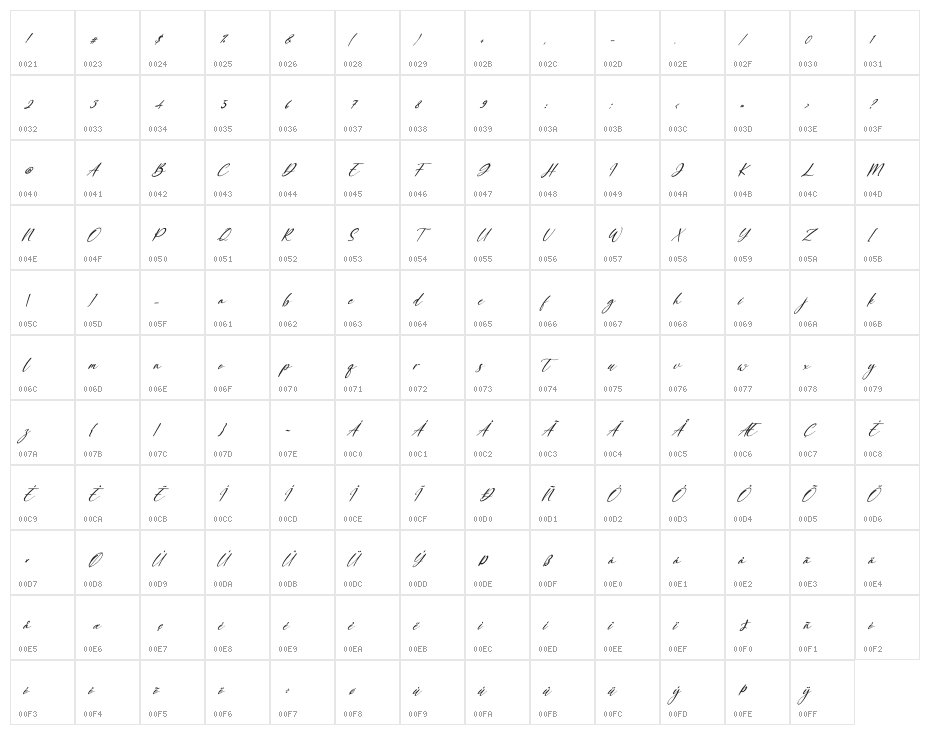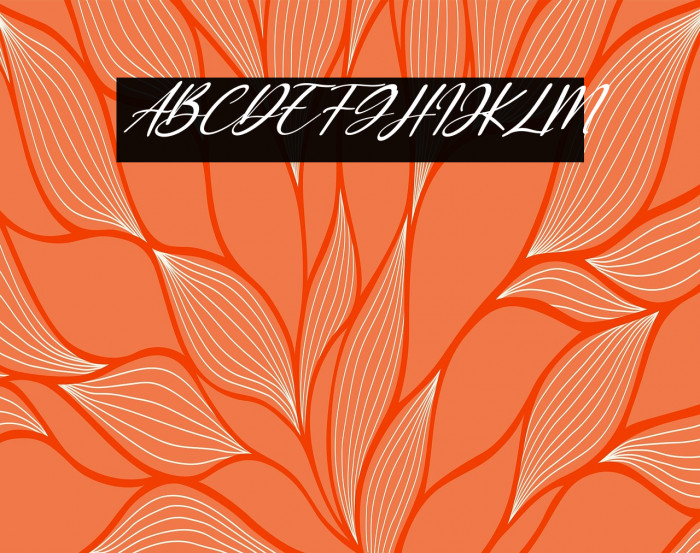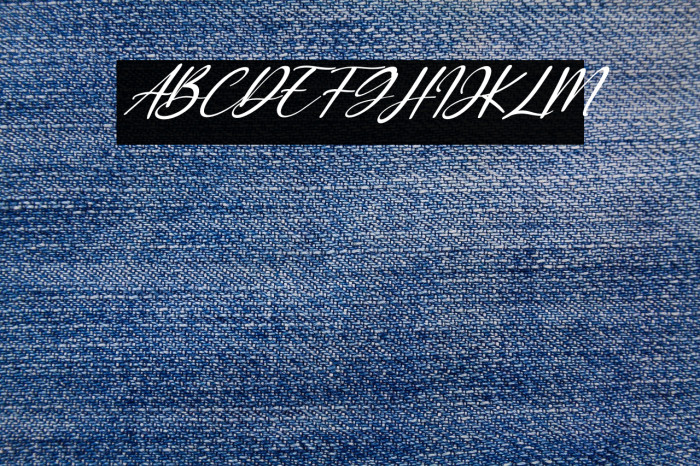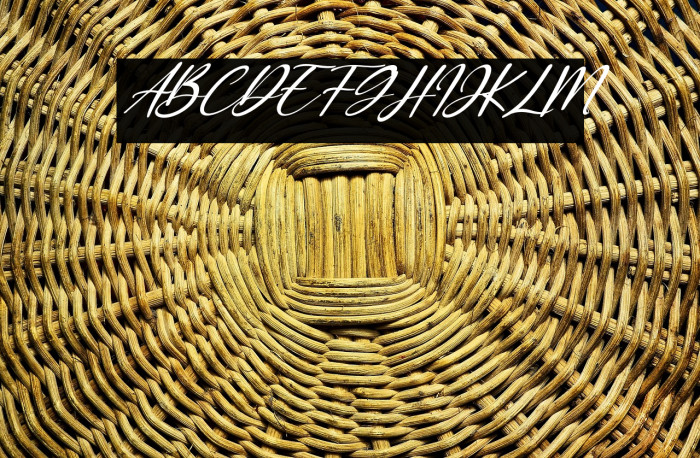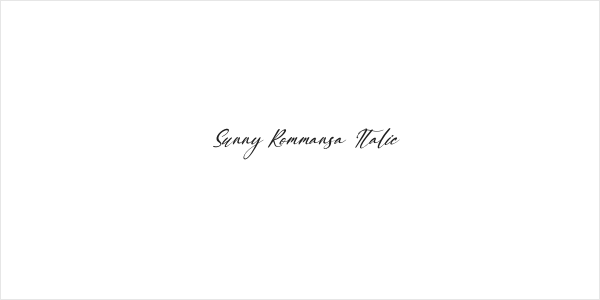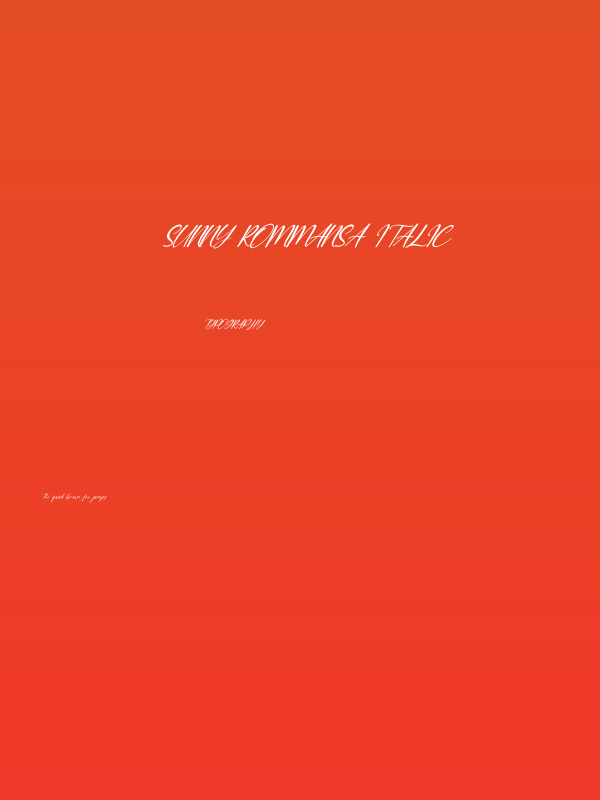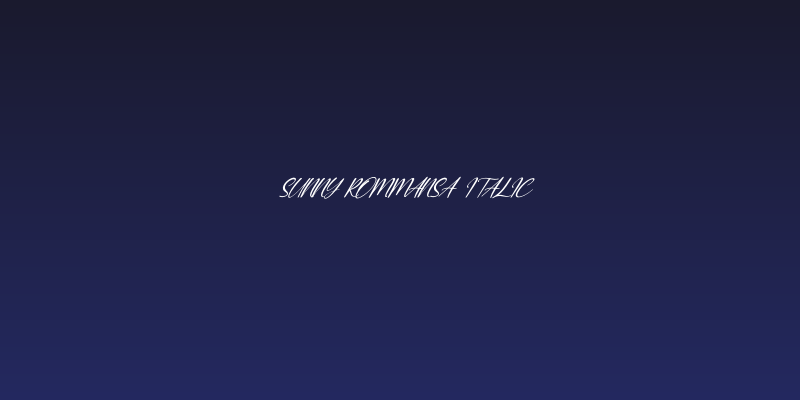
Sunny Rommansa Italic Font
Sunny Rommansa Italic Description
This font exhibits an elegant and flowing script style, characterized by its cursive, handwritten appearance. The letters are connected, creating a seamless and fluid look that is both sophisticated and artistic. The strokes are smooth and slightly slanted, enhancing the italic nature of the font. It features a high contrast between thick and thin lines, adding to its dynamic and expressive quality. The uppercase letters are ornate, with flourishes that add a touch of drama, while the lowercase letters maintain a more consistent and readable form. This font is perfect for projects that require a personal and stylish touch.
| Overall Style | Elegant, Artistic, Sophisticated |
| Use Case | Logos, Invitations, Decorative text |
| Proposed Projects | Ideal for wedding invitations, greeting cards, branding, and elegant logos. |